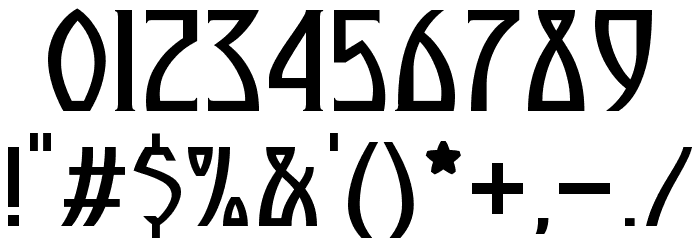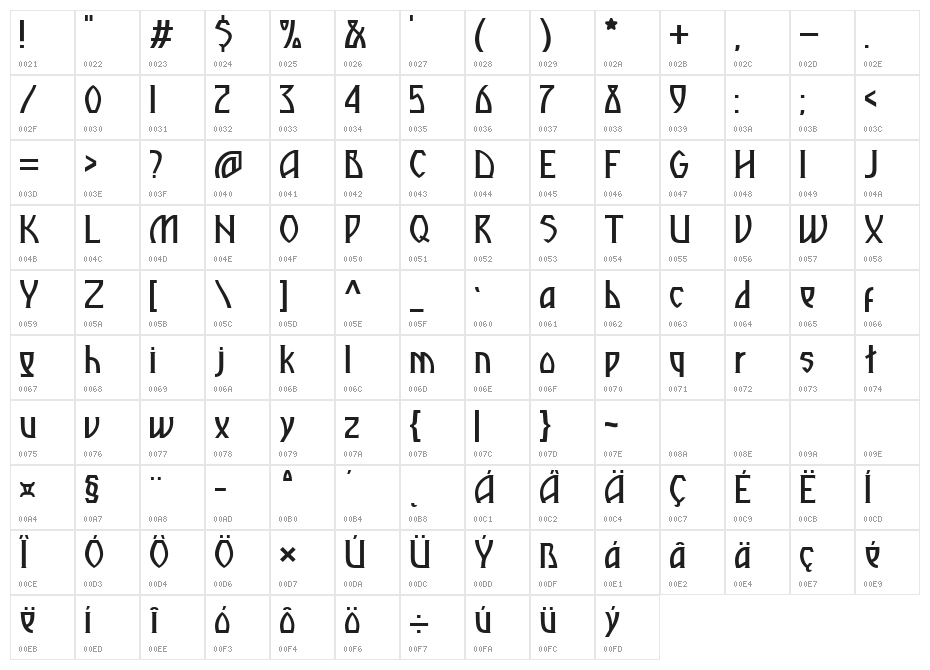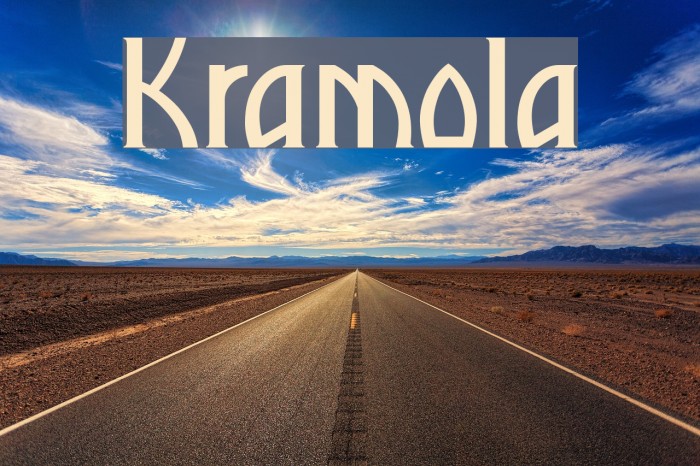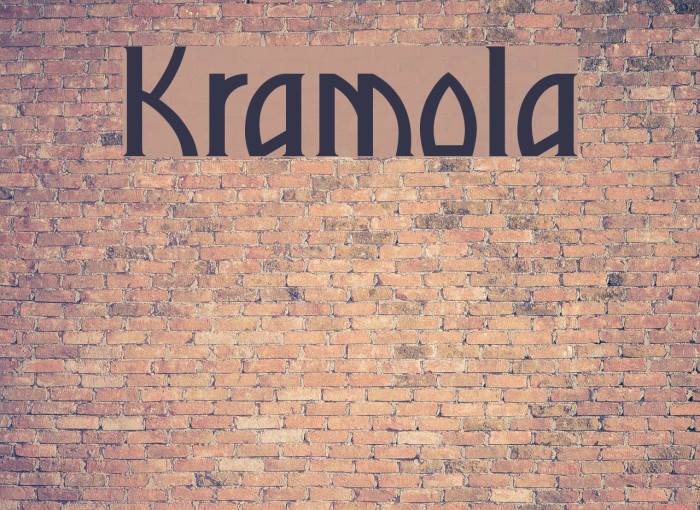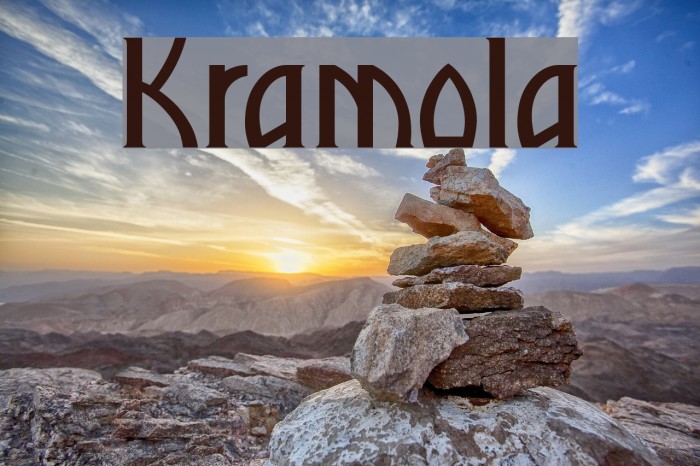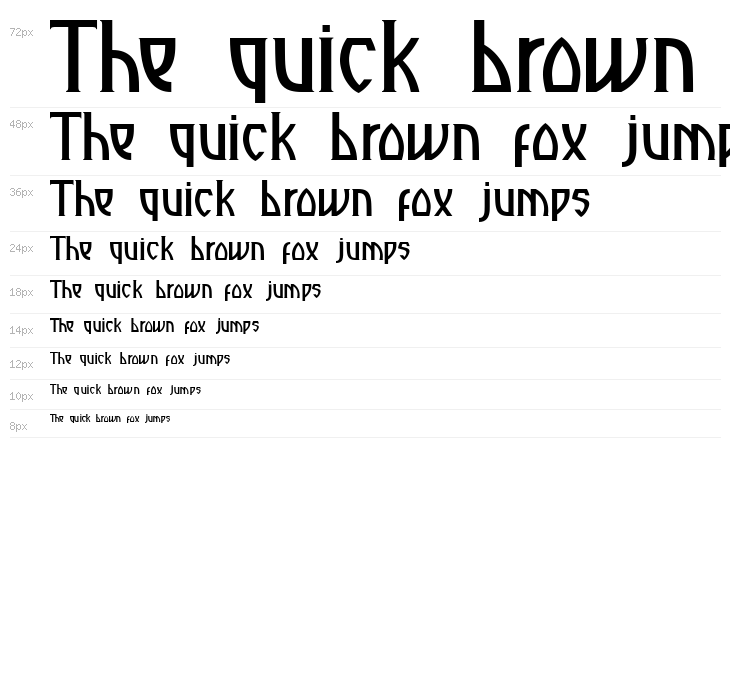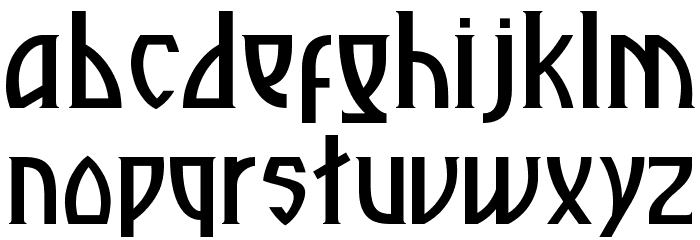
Kramola Font
Kramola Description
This font features a bold and striking design with a modern twist. The characters are crafted with sharp angles and a unique geometric flair, giving it a distinct and edgy appearance. The uppercase letters exhibit a strong presence with their tall and narrow forms, while the lowercase letters maintain a consistent style, offering a cohesive look. The numerals and special characters are designed to match the overall aesthetic, ensuring versatility across various applications. The font's boldness and unique style make it suitable for attention-grabbing headlines and creative projects.